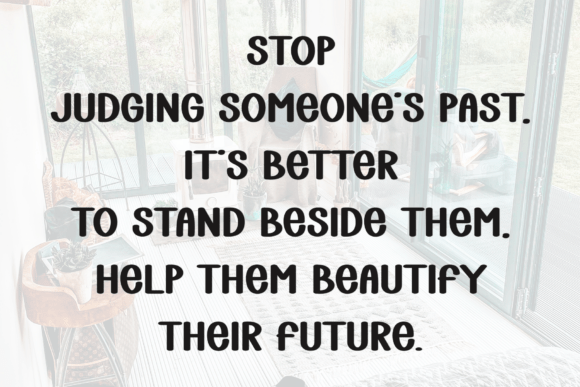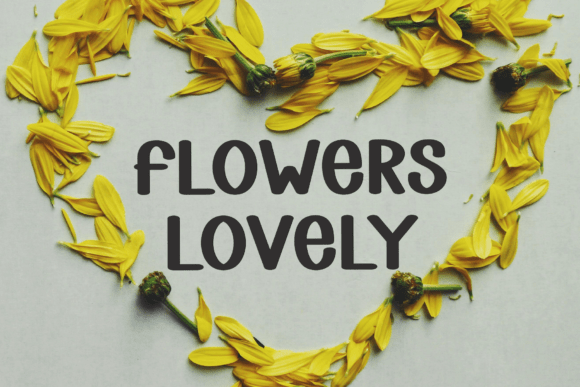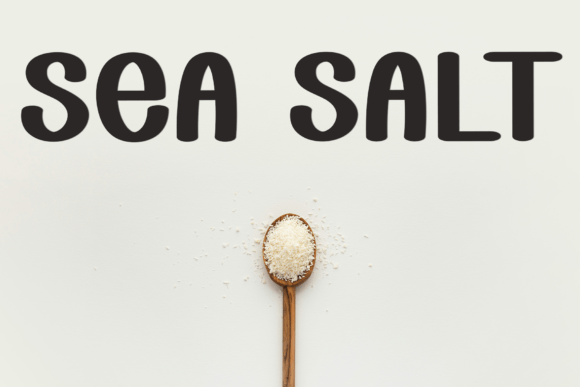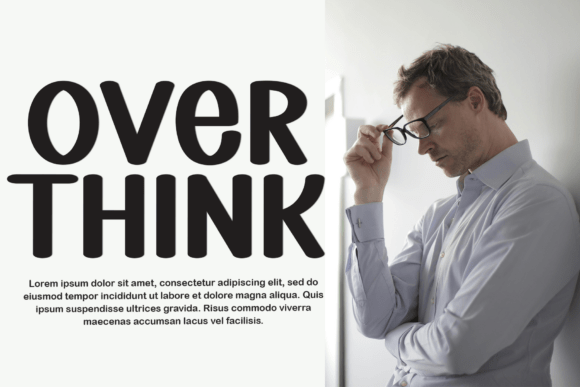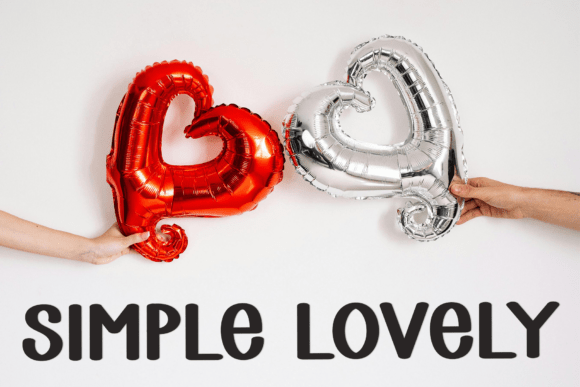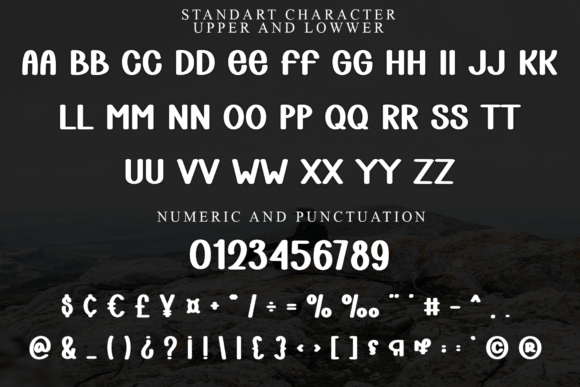
Dream Sunday Font: Elevate Your Designs with a Unique and Eye-Catching Style
Are you tired of using the same old fonts in your designs? Look no further than the Dream Sunday font, a beautiful and eye-catching typeface that is sure to take your creative projects to the next level. With its soft, unique touch and distinctive strokes, this font is perfect for designers, crafters, and artists looking to add a special something to their work.
A Versatile Font for a Wide Range of Applications
Dream Sunday is a versatile font that can be used in a variety of applications, from design projects and crafts to other creative works. Its natural font style makes it ideal for use on a wide range of products, including:
- Digital designs, such as social media graphics and blog posts
- Print materials, like brochures, flyers, and business cards
- Crafts, such as scrapbooking and card making
- Artistic projects, like illustrations and paintings
Whether you’re a professional designer or a hobbyist crafter, Dream Sunday is a great choice for anyone looking to add a unique touch to their work.
Distinctive Strokes and Characters
One of the standout features of the Dream Sunday font is its distinctive strokes and characters. The font has a soft, rounded feel that gives it a special character, making it meaningful and versatile for future use. With a wide range of characters to choose from, you’re sure to find the perfect combination to suit your design needs.
Enhance Your Designs with Dream Sunday
Using the Dream Sunday font in your designs can help to enhance their overall appeal and make them more engaging for your audience. Whether you’re looking to create a bold statement or a more subtle impression, this font is sure to deliver.
With its unique and eye-catching style, Dream Sunday can help you to:
- Stand out from the crowd and grab attention
- Create a lasting impression on your audience
- Add a touch of personality to your designs
Dream Sunday is a font that is perfect for designers and crafters alike. Whether you’re a professional designer looking for a new font to add to your collection, or a hobbyist crafter looking for a unique touch for your projects, this font is sure to meet your needs.
With its versatility, compatibility, and eye-catching style, Dream Sunday is a great choice for anyone looking to elevate their designs and take their creative projects to the next level.
In conclusion, the Dream Sunday font is a beautiful and eye-catching typeface that is sure to enhance your designs and take your creative projects to the next level. With its soft, unique touch, distinctive strokes, and versatile characters, this font is perfect for designers, crafters, and artists looking to add a special something to their work.